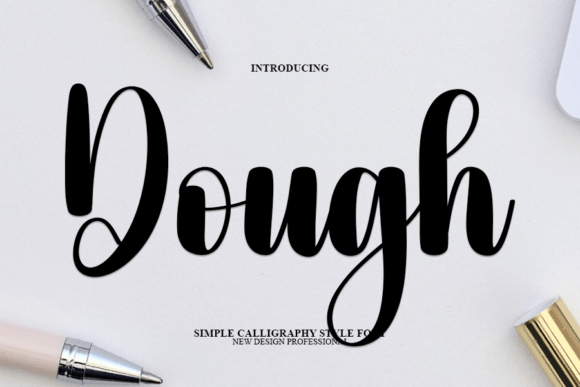
Dough Font: A Delicate Handwritten Font for Unique Designs
In the world of typography, fonts play a crucial role in conveying the tone and personality of a brand or design. With the vast array of fonts available, it can be challenging to find the perfect one that stands out from the rest. However, if you’re looking for a font that exudes elegance, sophistication, and a touch of whimsy, look no further than the Dough Font. In this article, we’ll explore the features and benefits of the Dough Font, and how it can elevate your designs to the next level.
What is Dough Font?
Dough Font is a delicate handwritten font that has been carefully crafted to provide a cool and unique design. This font is perfect for those who want to add a personal touch to their writing, whether it’s for letters, invitations, food products, titles, or more. The Dough Font is designed to be versatile, making it suitable for a wide range of applications, from digital designs to print materials.
Features of Dough Font
The Dough Font boasts several features that make it an excellent choice for designers and crafty individuals. Some of its notable features include:
- Delicate Handwritten Style: The Dough Font has a beautiful, handwritten style that adds a touch of elegance and sophistication to any design.
- Unique Character Set: The font includes a unique character set, complete with uppercase and lowercase letters, numbers, and punctuation marks.
- High-Quality Design: The Dough Font is designed with high-quality vectors, ensuring that it looks great in any size or resolution.
- Easy to Read: Despite its delicate nature, the Dough Font is easy to read, making it perfect for body text and headings.
Benefits of Using Dough Font
The Dough Font offers several benefits that make it an excellent choice for designers and crafty individuals. Some of the benefits of using the Dough Font include:
- Stand Out from the Crowd: The Dough Font’s unique and delicate design ensures that your work stands out from the crowd.
- Add a Personal Touch: The handwritten style of the Dough Font adds a personal touch to your designs, making them more relatable and engaging.
- Versatile: The Dough Font is versatile and can be used for a wide range of applications, from digital designs to print materials.
- Elegant and Sophisticated: The Dough Font exudes elegance and sophistication, making it perfect for high-end designs and luxury brands.
Use Cases for Dough Font
The Dough Font is suitable for a wide range of applications, including:
- Invitations: The Dough Font is perfect for creating beautiful and elegant invitations for weddings, parties, and other special occasions.
- Food Products: The font’s delicate and handwritten style makes it ideal for food products, such as bakery labels, menus, and packaging.
- Titles and Headings: The Dough Font can be used to create stunning titles and headings for books, magazines, and other publications.
- Digital Designs: The font can be used for digital designs, such as social media graphics, blog posts, and website headers.
Tips for Using Dough Font
To get the most out of the Dough Font, here are some tips to keep in mind:
- Use it Sparingly: The Dough Font is best used sparingly, as it can be overwhelming if overused.
- Pair it with Other Fonts: The Dough Font can be paired with other fonts to create a unique and visually appealing design.
- Experiment with Colors: The font looks great in a variety of colors, so don’t be afraid to experiment and find the perfect hue for your design.
In conclusion, the Dough Font is a beautiful and delicate handwritten font that is perfect for adding a touch of elegance and sophistication to your designs. Its unique character set, high-quality design, and ease of use make it an excellent choice for designers and crafty individuals. Whether you’re creating invitations, food products, titles, or digital designs, the Dough Font is sure to elevate your work to the next level.